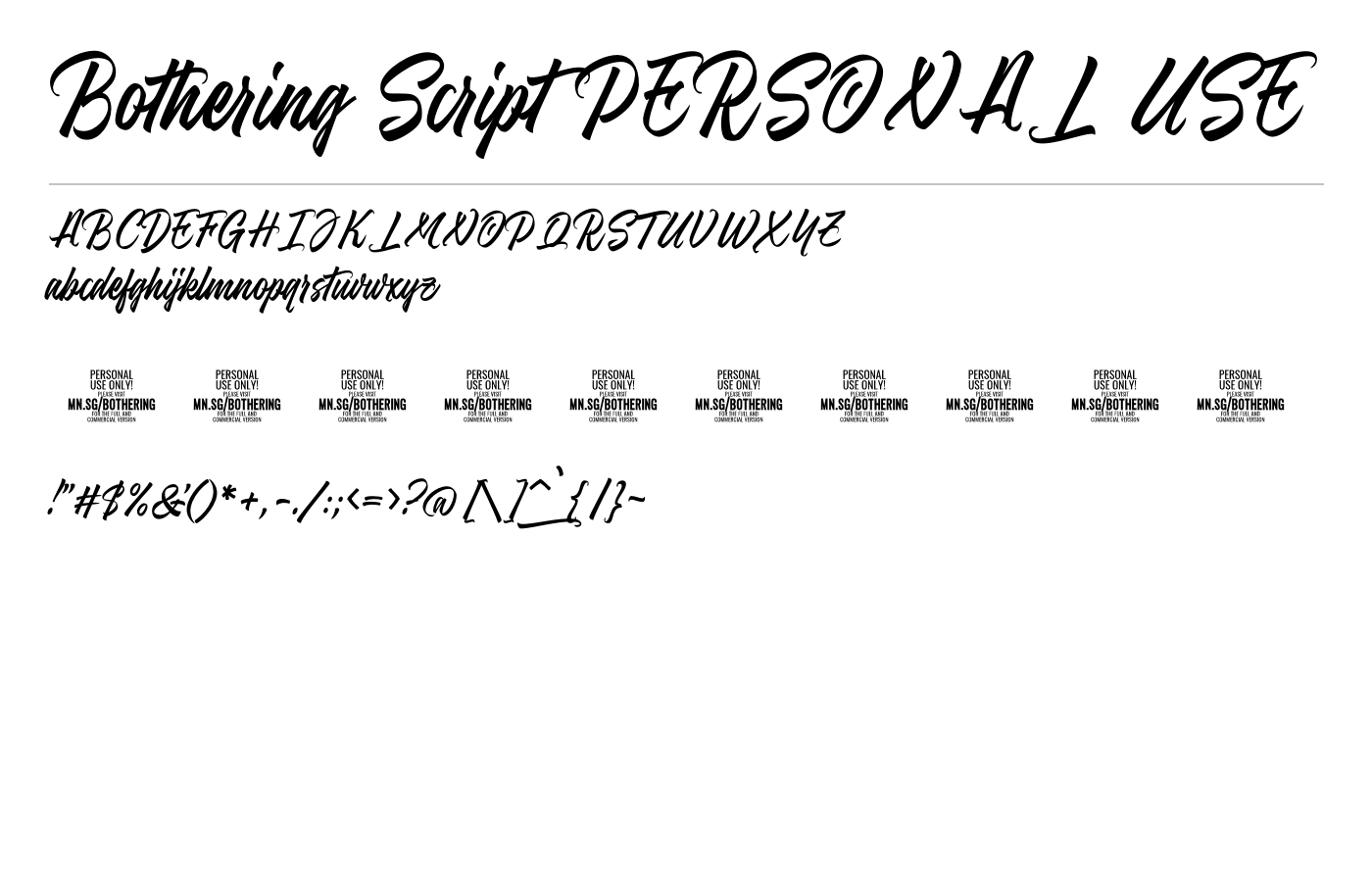
Bothering Script is a lively and elegant script font that features smooth, flowing strokes with medium contrast, giving it a personal and handwritten feel. Its upright, moderately slanted letterforms combined with unique character shapes make it perfect for adding a stylish yet approachable touch to invitations, branding, and creative projects that seek a warm, expressive vibe. This font works best in headlines, logos, and decorative text where its personality can truly shine.
Bothering Script PERSONAL USE Font
About Bothering Script PERSONAL USE Font